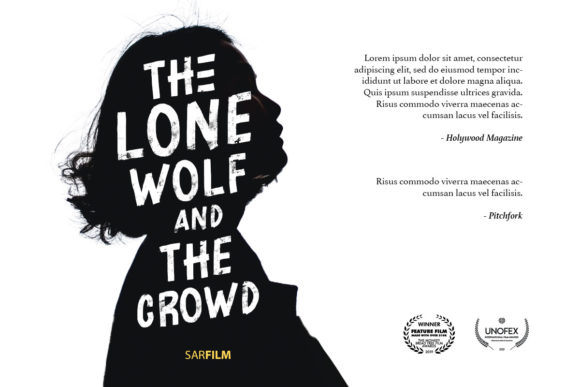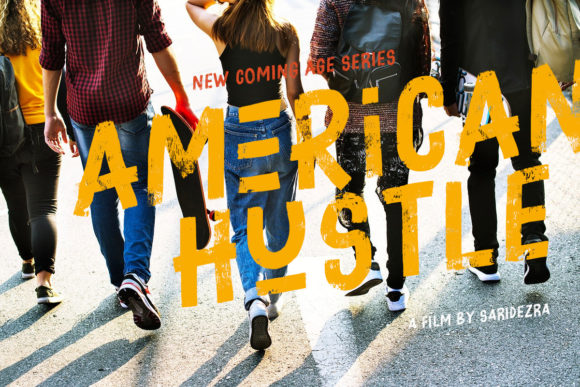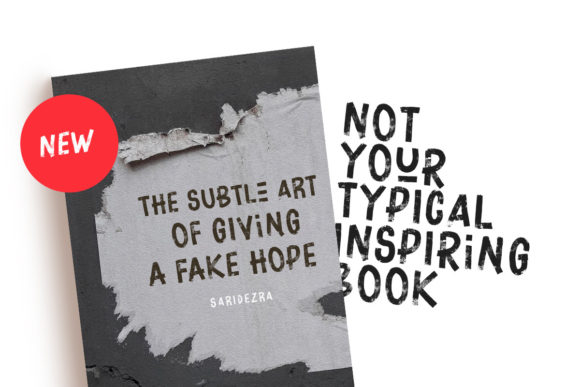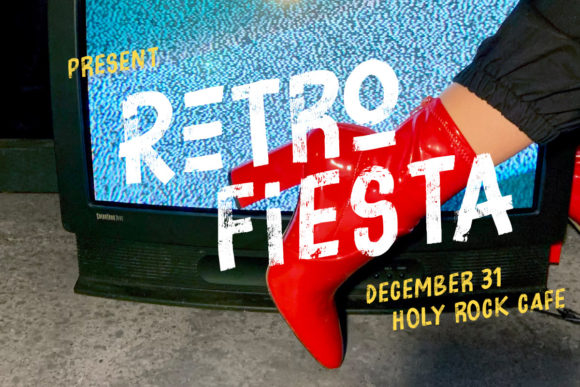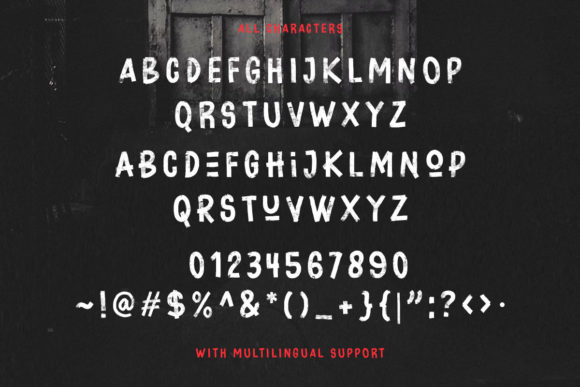
Introducing Broken Drive Font: Unleash Your Creativity with a Cool and Bold Display Font
Are you tired of using the same old fonts for your designs? Look no further! Broken Drive Font is here to shake things up with its unique, rough textured display style that’s sure to make your posters, flyers, and prints stand out. In this article, we’ll dive into the features and benefits of Broken Drive Font, and explore how you can use it to take your designs to the next level.
What is Broken Drive Font?
Broken Drive Font is a cool and bold, rough textured display font that’s perfect for designers and crafters looking to add a touch of edginess to their work. Its unique texture and distressed look give it a one-of-a-kind appearance that’s sure to grab attention. Whether you’re designing a poster, flyer, or print, Broken Drive Font is the perfect choice for adding a bold and eye-catching element to your design.
Key Features of Broken Drive Font
- Unique Texture: Broken Drive Font features a rough, textured look that’s unlike any other font out there. Its distressed appearance adds a touch of grit and edginess to your designs.
- Bold and Eye-Catching: This font is designed to make a statement. Its bold and chunky letters are perfect for headlines, titles, and other prominent text elements.
- Highly Versatile: Broken Drive Font can be used for a wide range of design projects, from posters and flyers to prints and digital graphics.
Benefits of Using Broken Drive Font
So why choose Broken Drive Font for your designs? Here are just a few benefits of using this amazing font:
- Adds Edginess to Your Designs: Broken Drive Font’s unique texture and distressed look add a touch of grit and edginess to your designs, making them stand out from the crowd.
- Increases Readability: The bold and chunky letters of Broken Drive Font make it easy to read, even at small sizes.
- Endless Possibilities: Broken Drive Font is highly versatile, making it perfect for a wide range of design projects. From posters and flyers to prints and digital graphics, the possibilities are endless!
Tips and Tricks for Getting the Most Out of Broken Drive Font
Here are a few tips and tricks for getting the most out of Broken Drive Font:
- Experiment with Different Colors: Try pairing Broken Drive Font with bold and bright colors to really make it pop.
- Play with Texture: Experiment with different textures and patterns to add depth and interest to your designs.
- Use it as a Statement Piece: Use Broken Drive Font as a statement piece in your design, and then use a simpler font for body text.
Broken Drive Font is a game-changer for designers and crafters looking to add a touch of edginess to their work. Its unique texture, bold and eye-catching style, and highly versatile nature make it the perfect choice for a wide range of design projects. With its easy-to-use interface and seamless integration with popular design software, you can start creating stunning designs with Broken Drive Font in no time. So why wait? Download Broken Drive Font today and unleash your creativity!